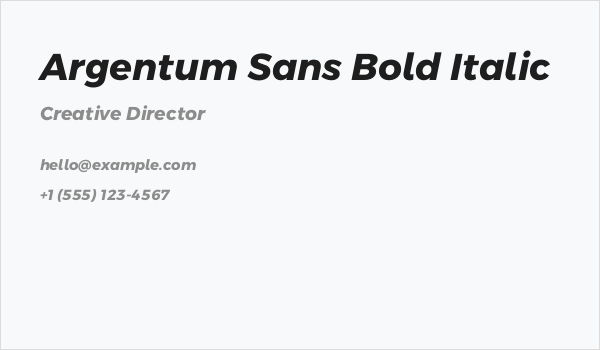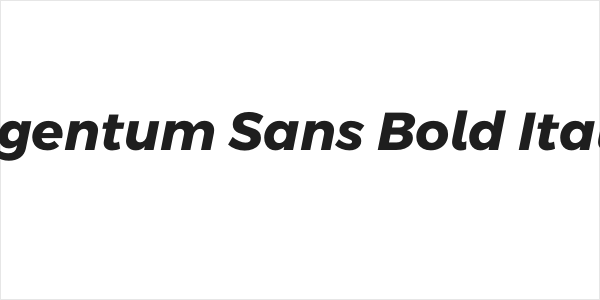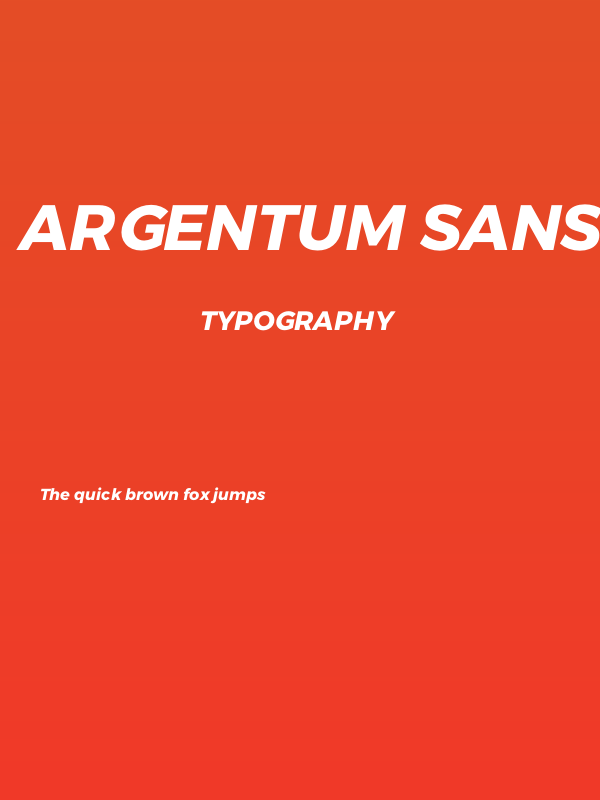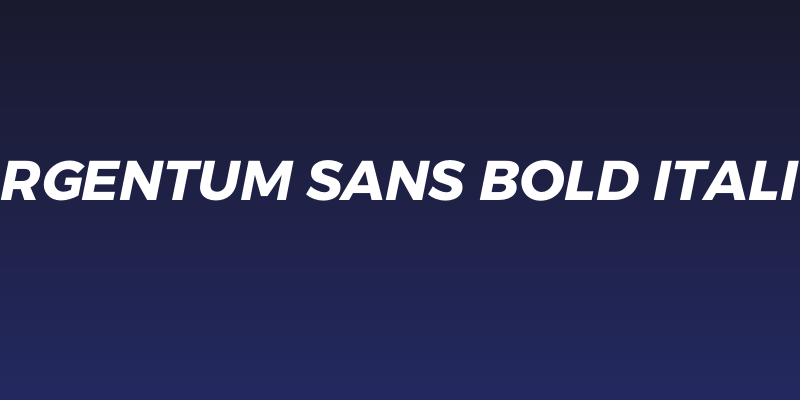
Argentum Sans Bold Italic Font
Argentum Sans Bold Italic Description
This font exhibits a modern and clean sans-serif style with bold and italic characteristics. The letters are well-defined with a consistent stroke width, giving it a robust and confident appearance. The italic slant adds a dynamic and forward-moving feel, making it suitable for contemporary design projects. The uppercase and lowercase letters are balanced, and the numerals are clear and easy to read. Special characters are included, maintaining the same bold and italic style, ensuring versatility in various applications.
| Proposed Projects | Ideal for branding, advertising, headlines, and digital media where a modern and bold statement is needed. |